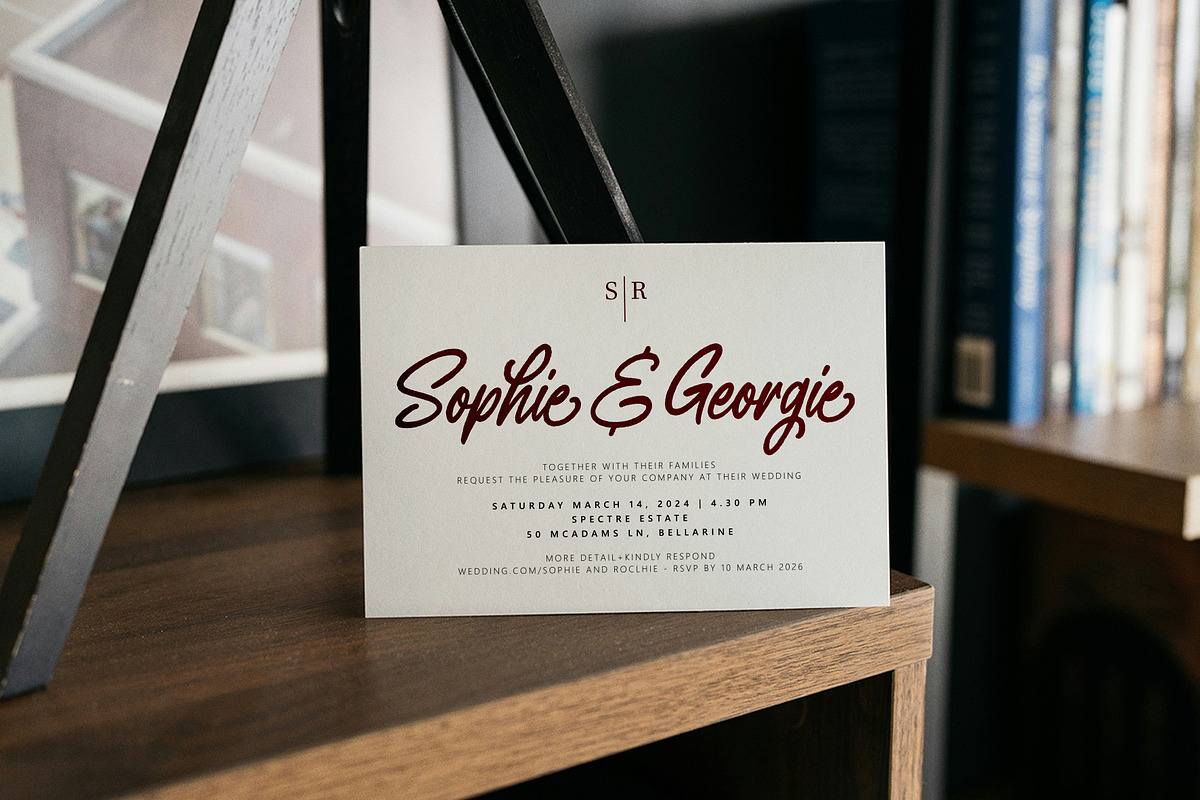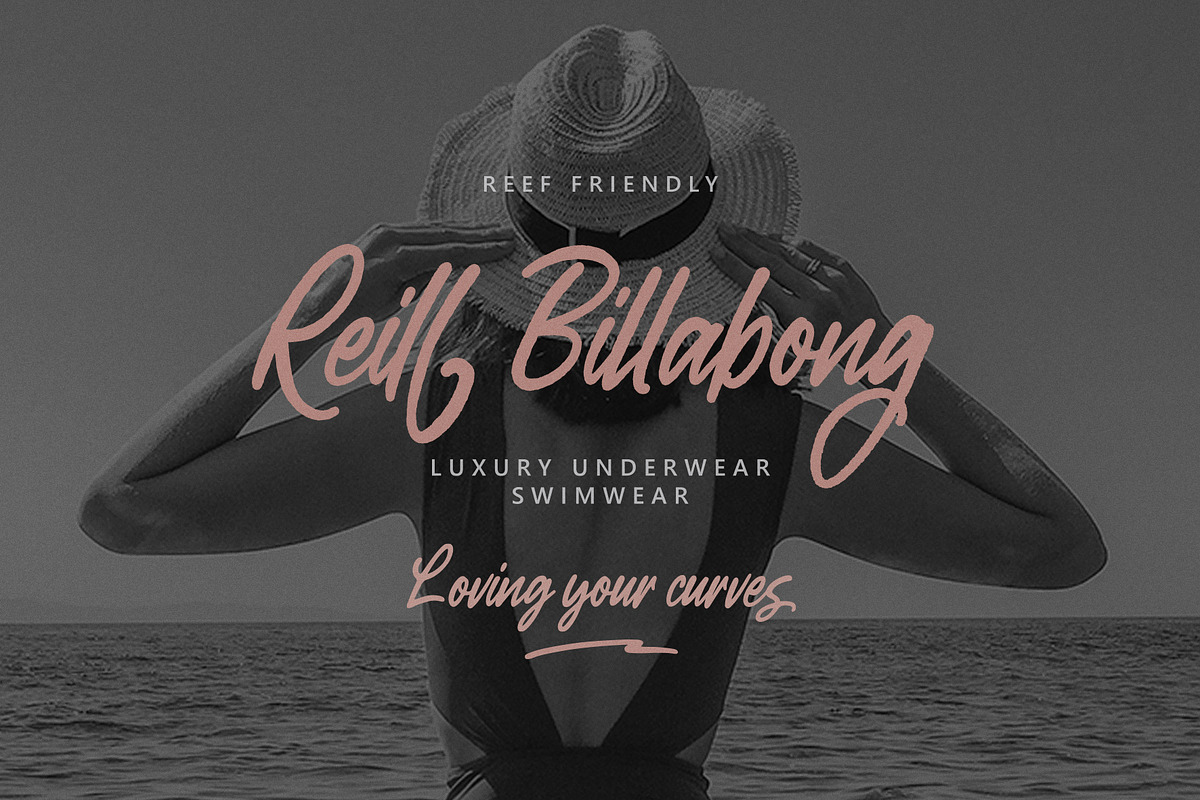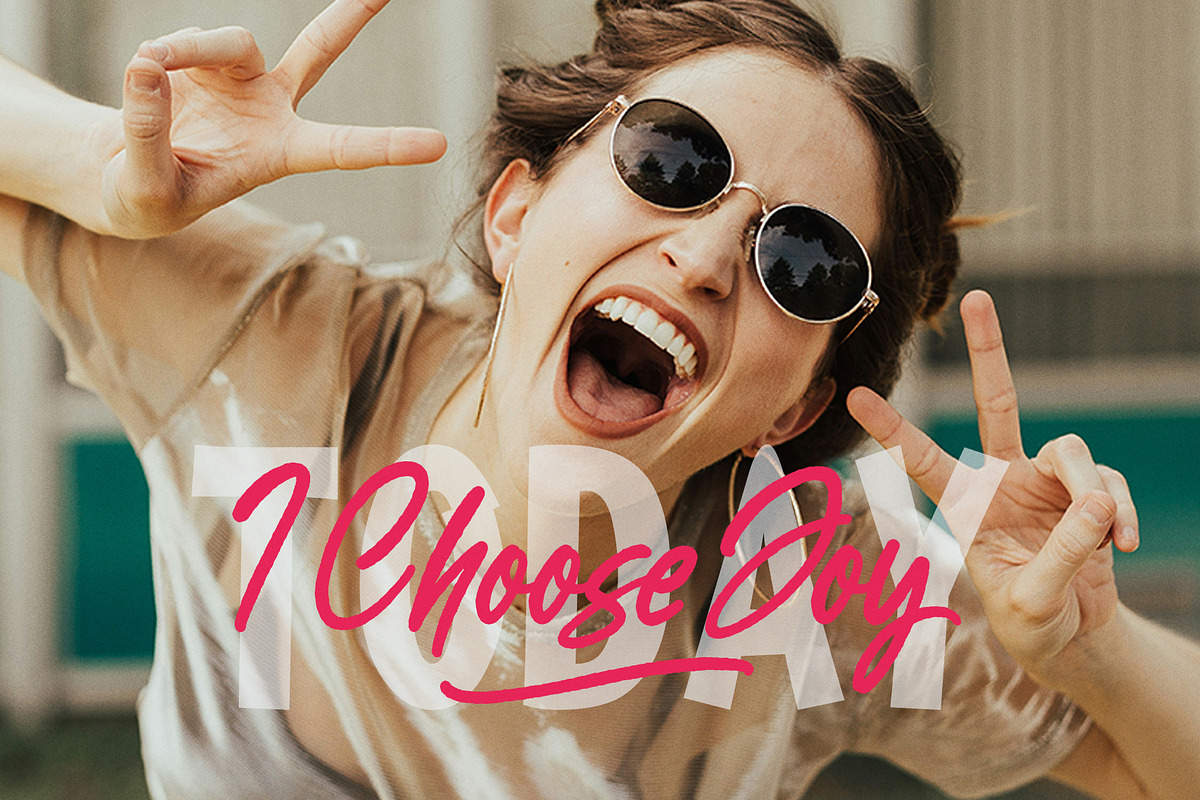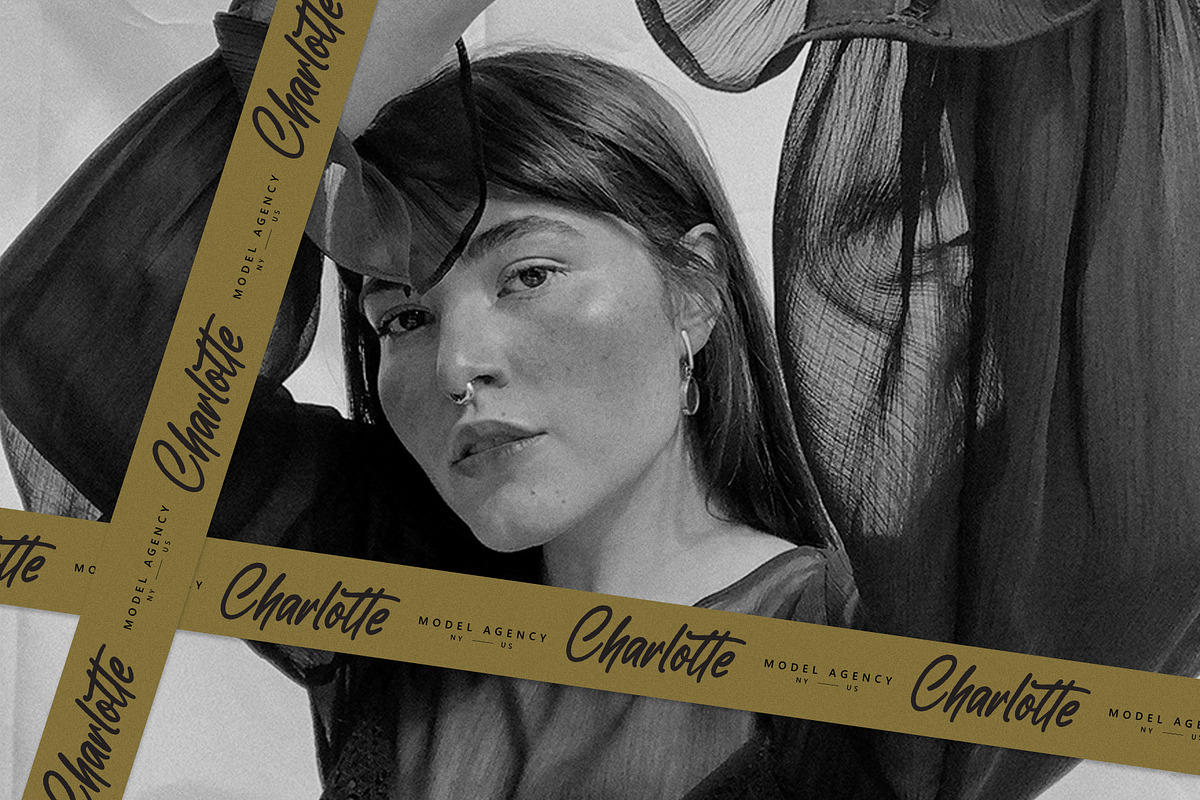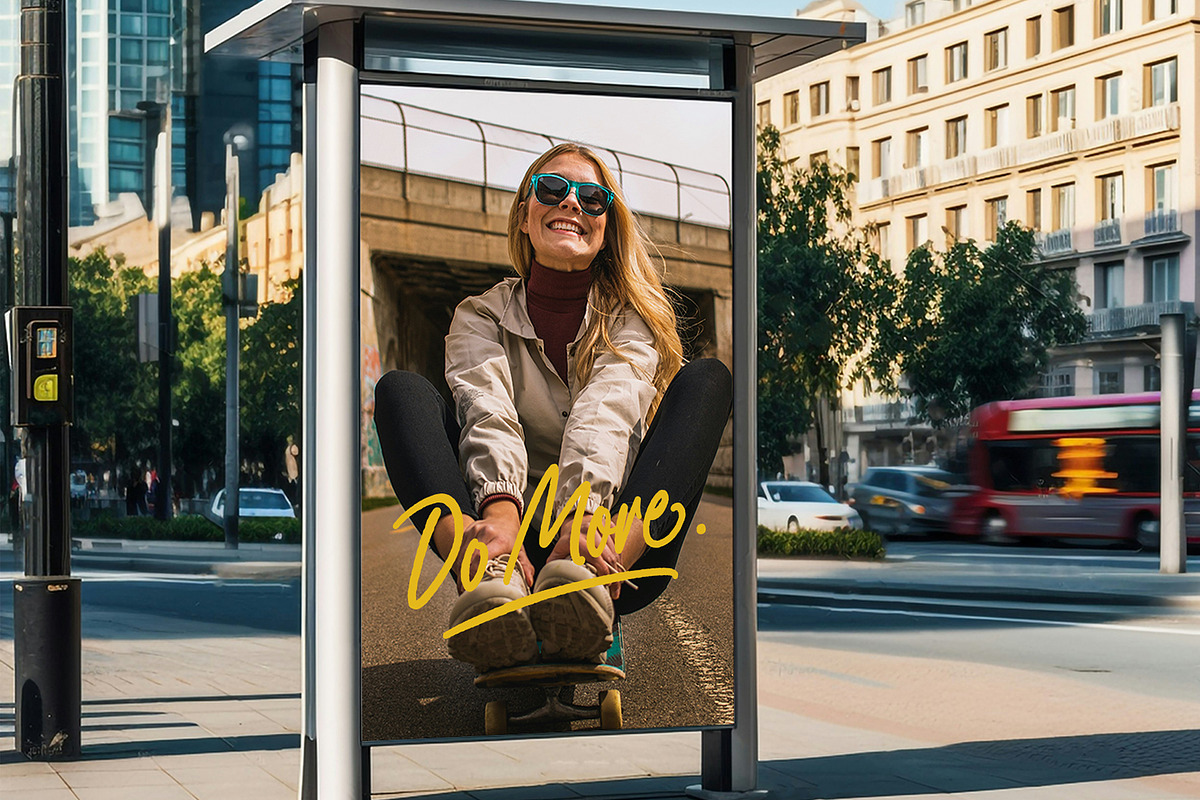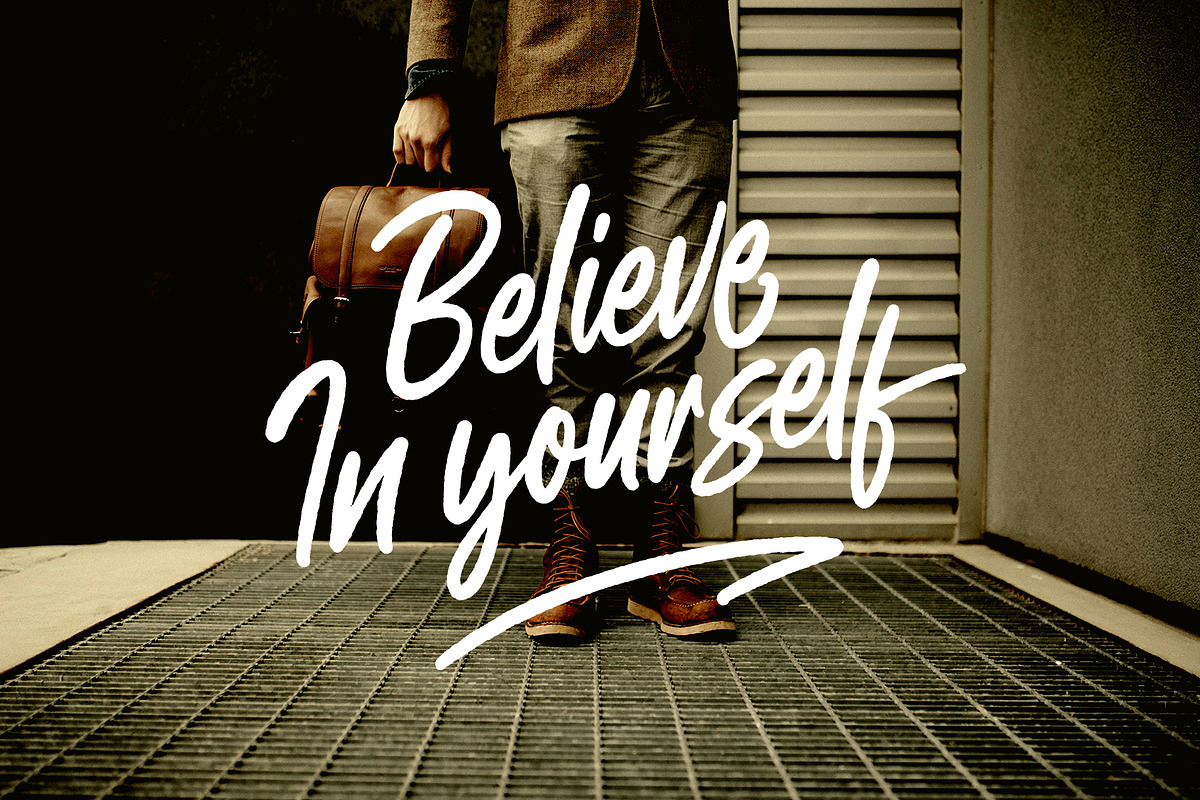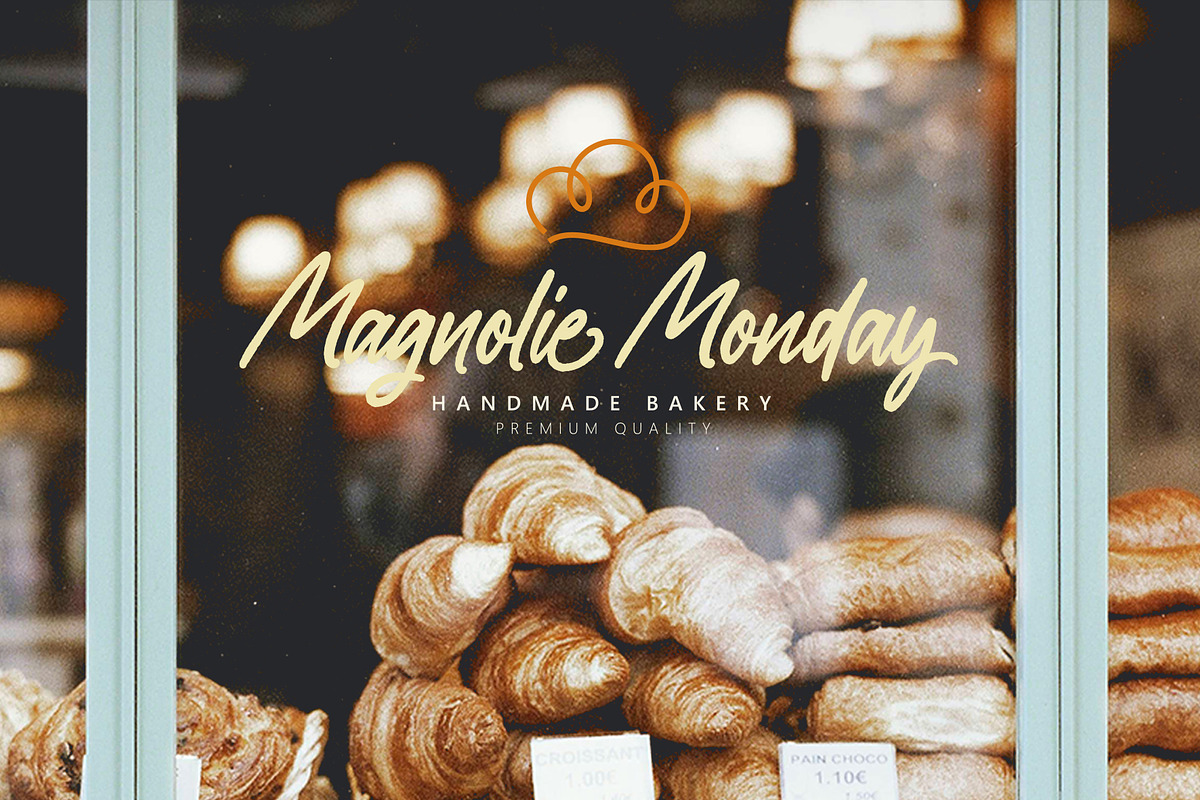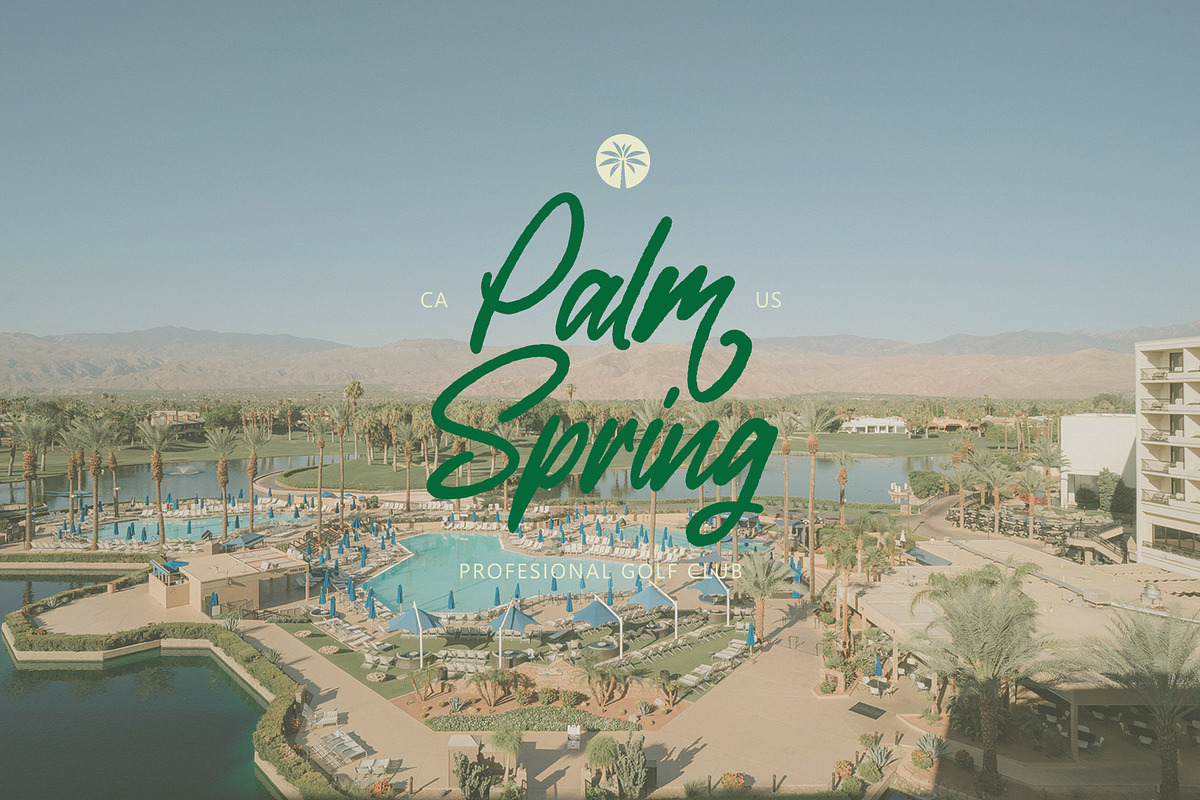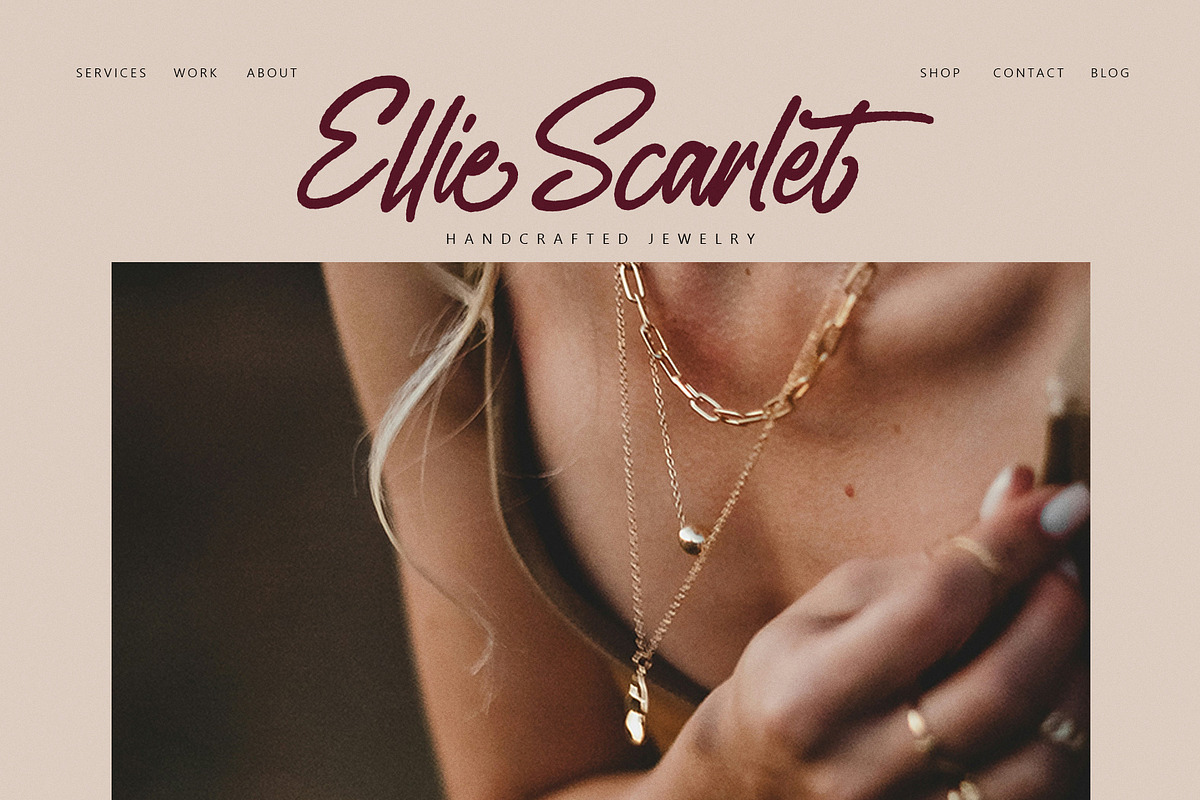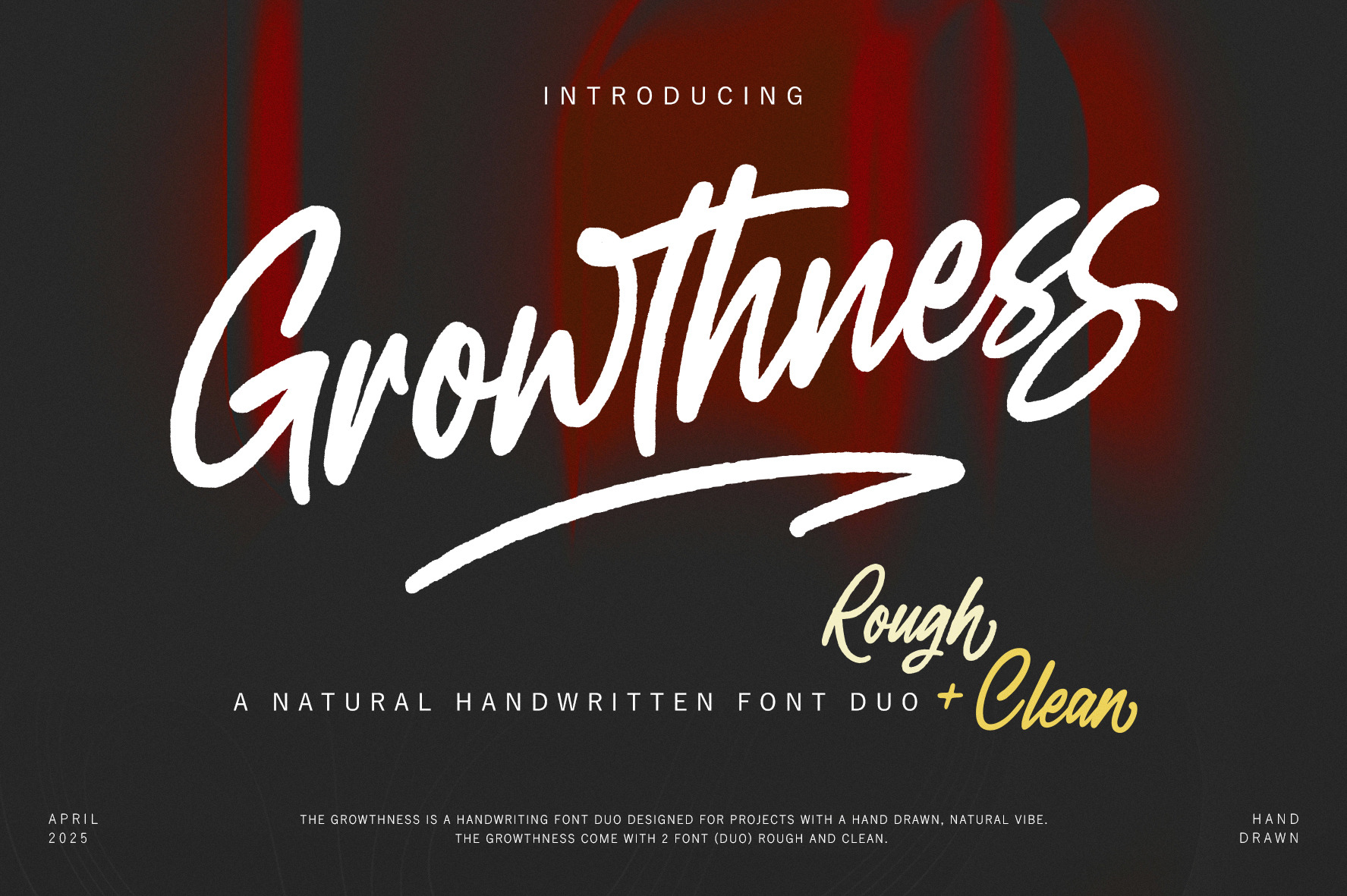
Growthness Handwritten Font Duo
Growthness is a handwritten font duo designed for projects with a hand drawn, natural vibe. Suitable for branding, product packaging, movie posters, art posters, quotes, logo design, name card, blog header, logo, fashion, apparel and other projects.
The Growthness come with 2 font (duo) Rough and Clean, 16 alternative brush strokes. Uppercase & Lowercase International Language & Symbols Support Punctuation & Number PUA Unicode Range Standard Stylistic Alternates Stylistic Set Character Variant Contextual.